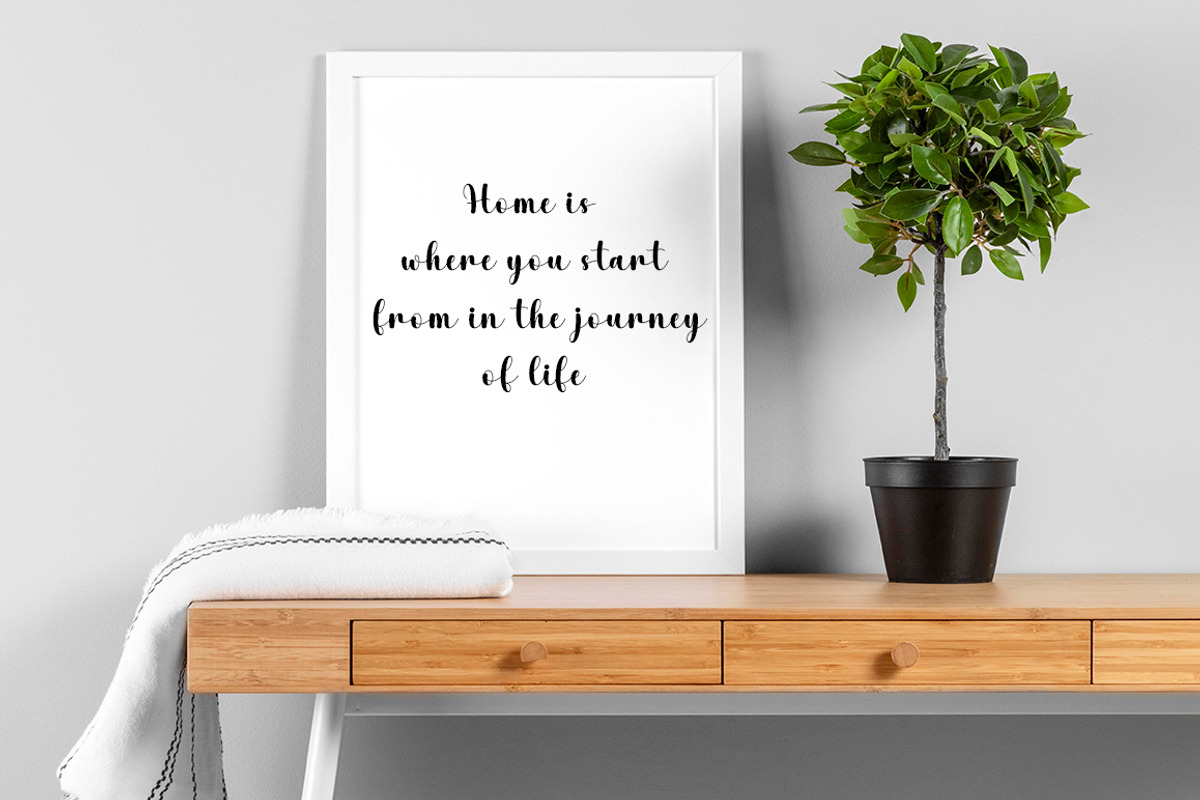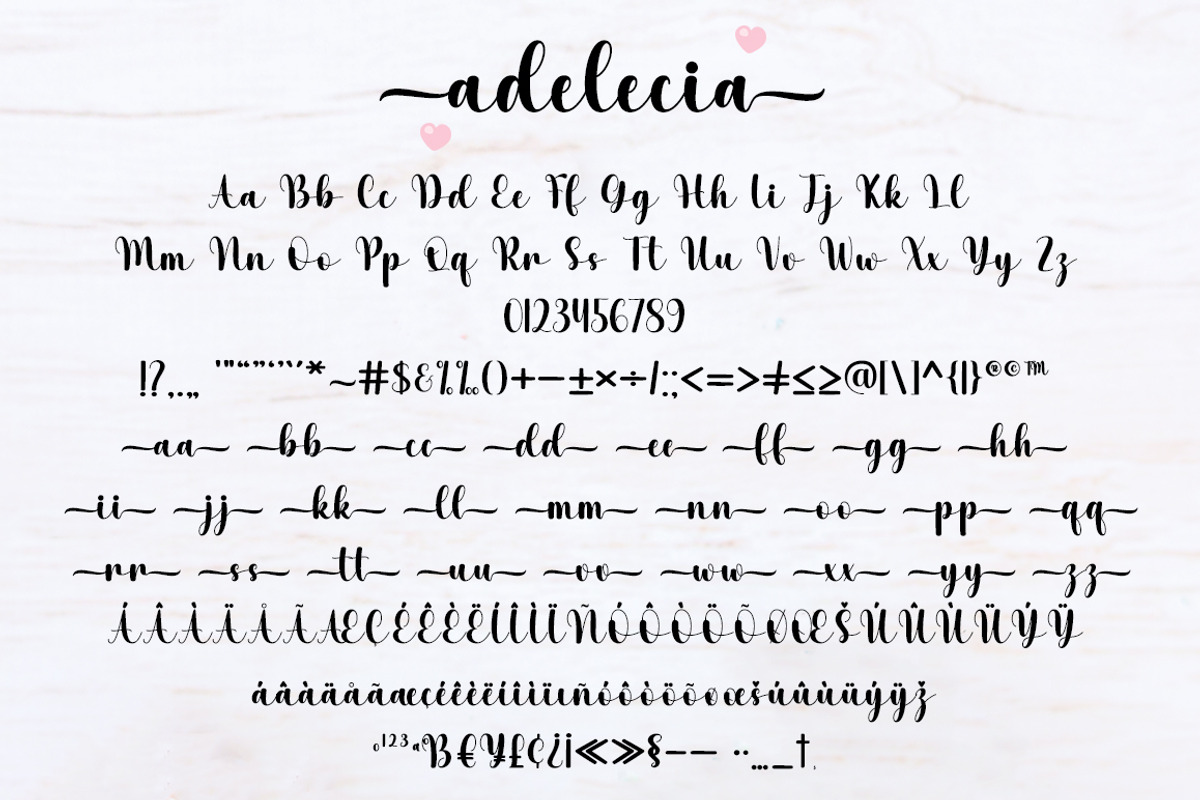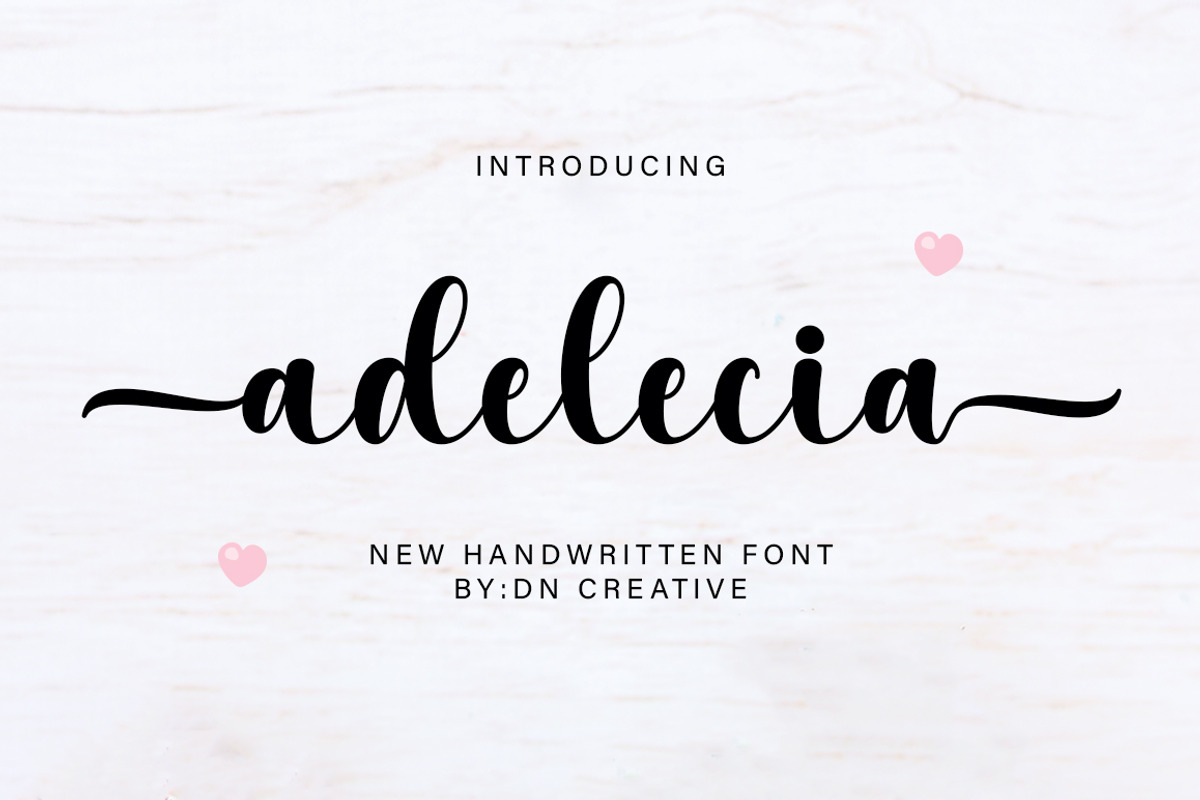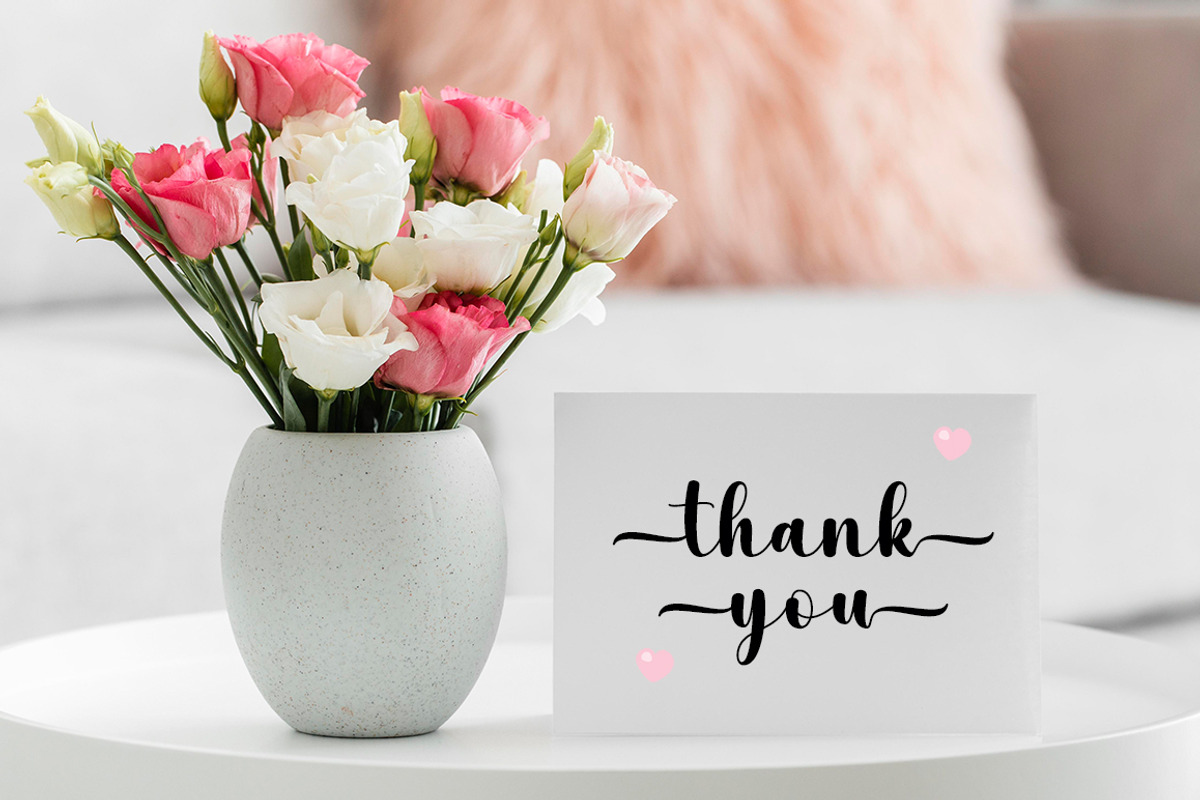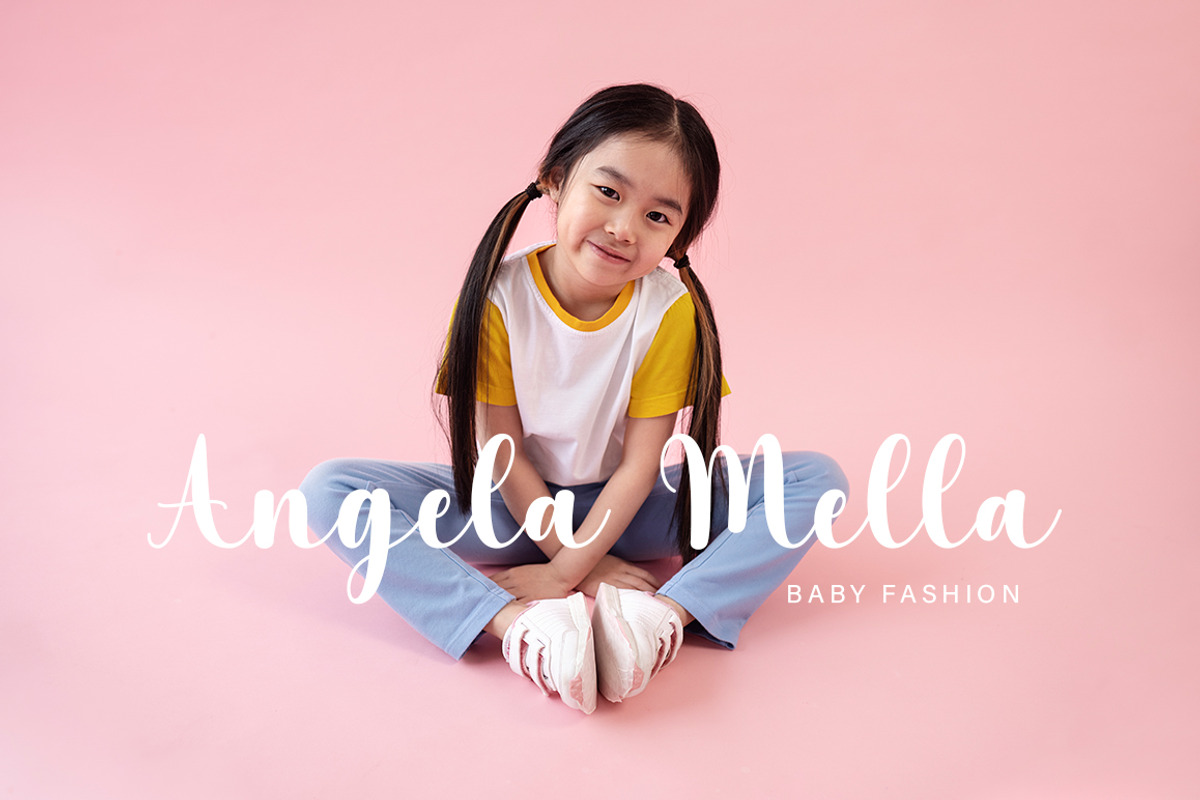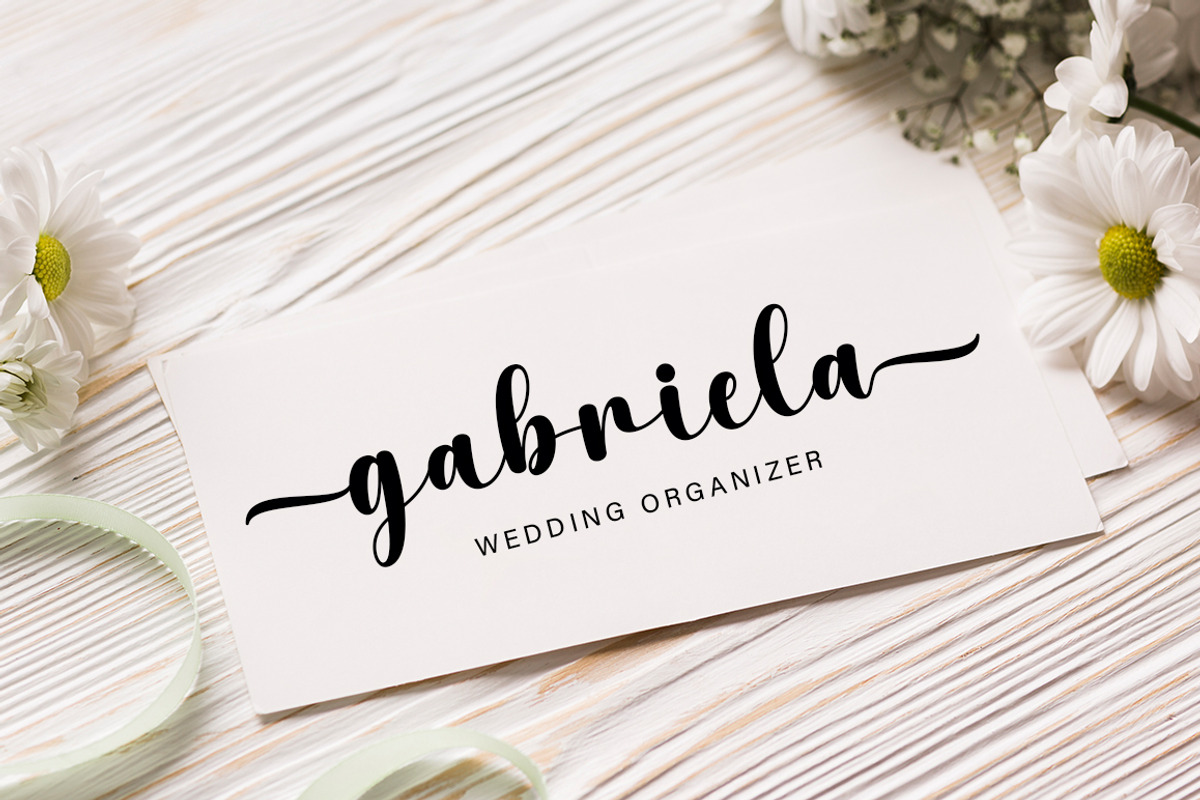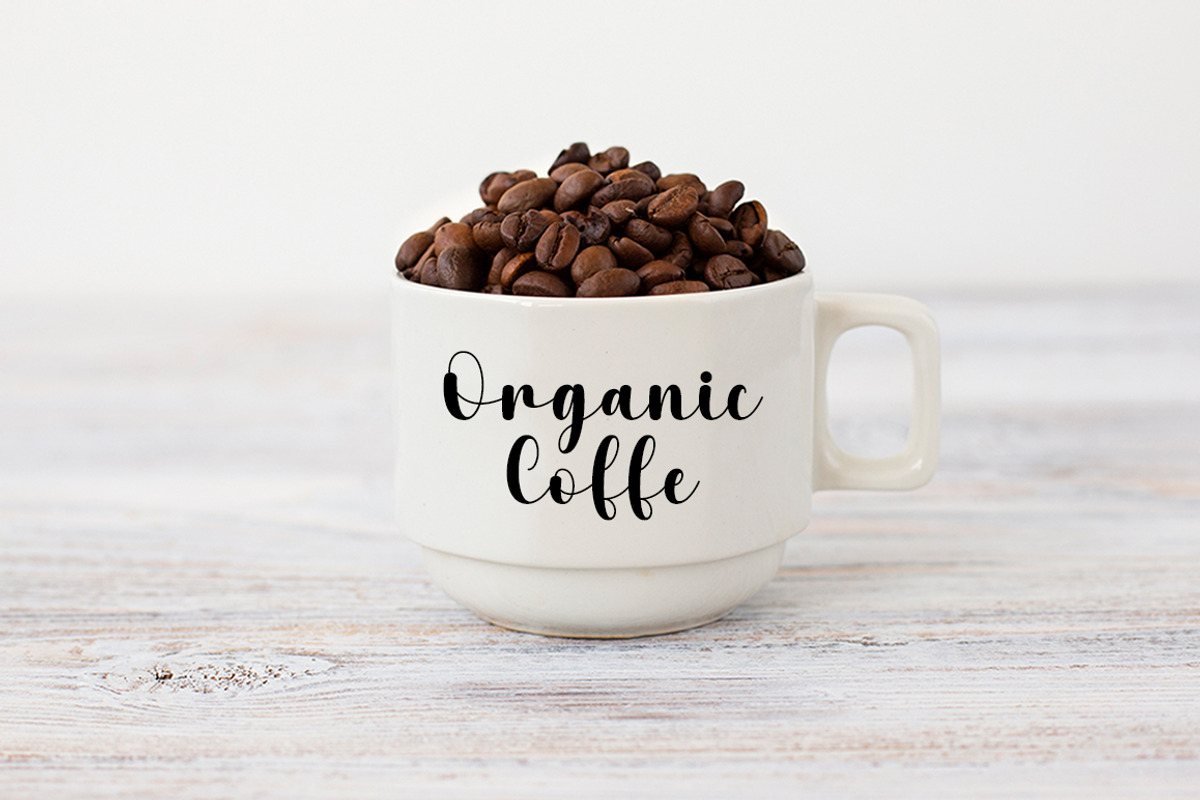
Adelecia
Adelecia is a delicate handwritten font carefully crafted for a cool and unique design. This font can be used to write letters, invitations, food products, titles, and more.